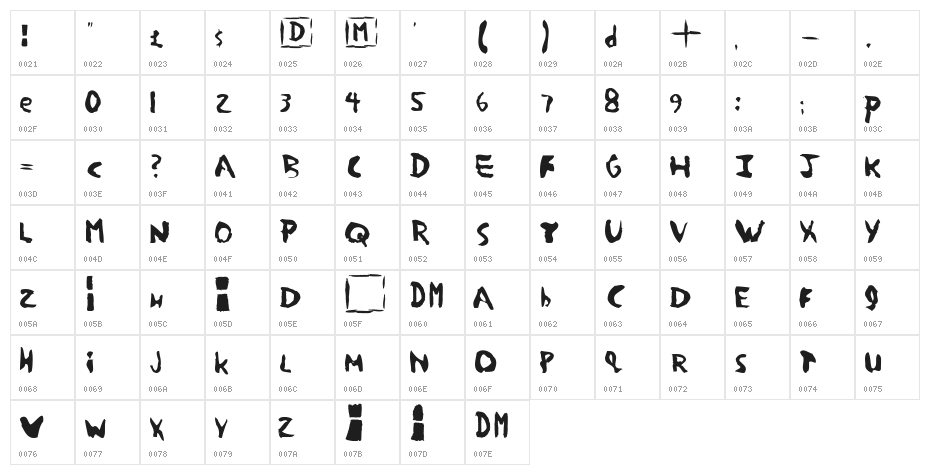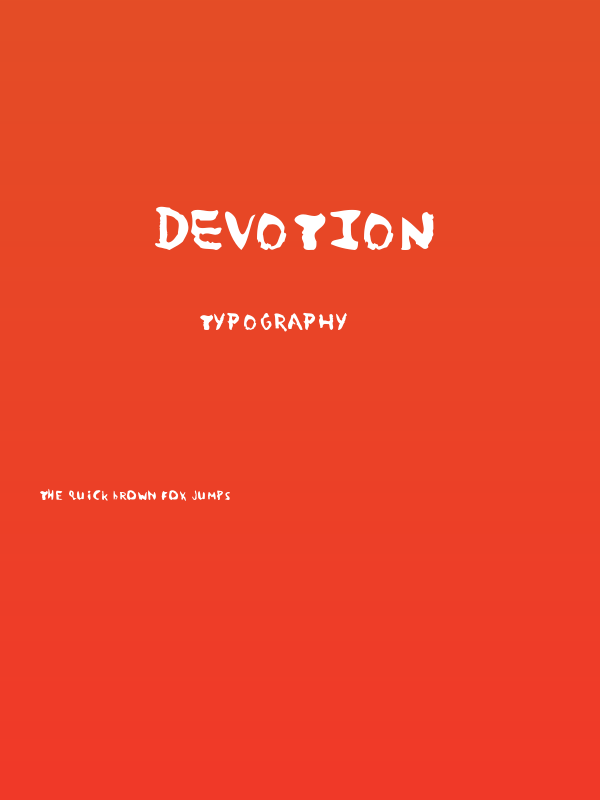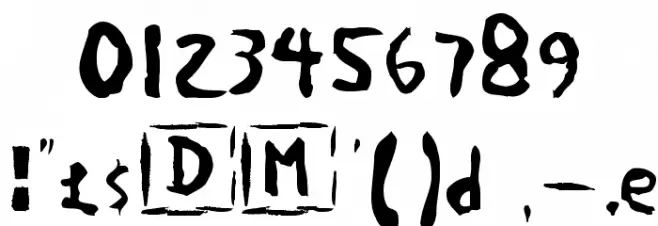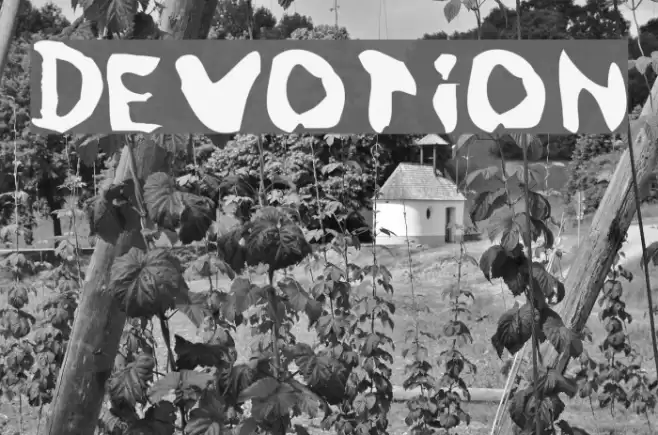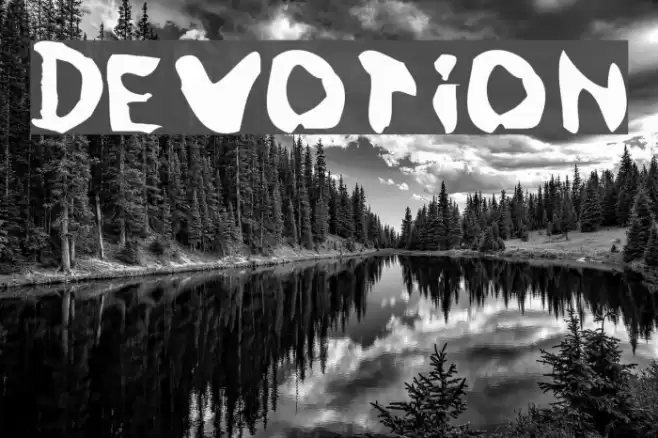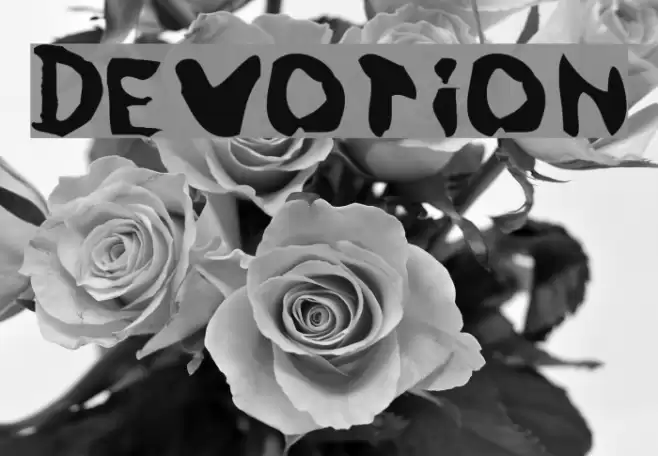
Devotion Font
Devotion Description
This font features a bold and expressive style with a hand-painted appearance, characterized by irregular edges and a dynamic flow. The uppercase and lowercase letters maintain a consistent, artistic flair, while the numbers and special characters complement the overall aesthetic. The strokes are thick and uneven, giving a sense of movement and energy. This font is ideal for projects that require a personal touch or an artistic vibe, such as posters, album covers, or creative branding. Its unique style makes it stand out, ensuring that any text is both eye-catching and memorable.